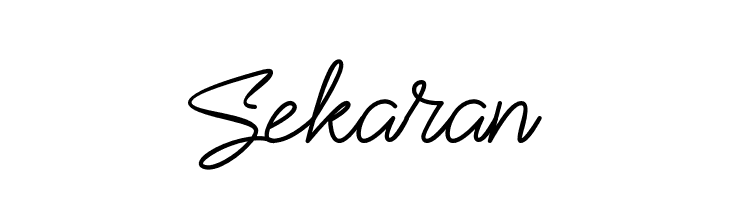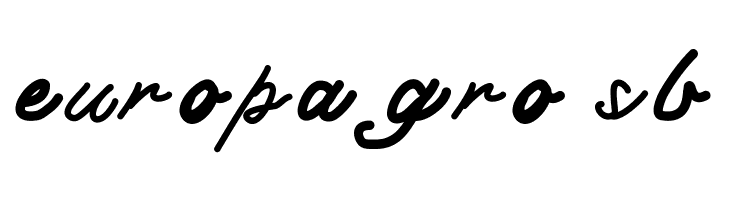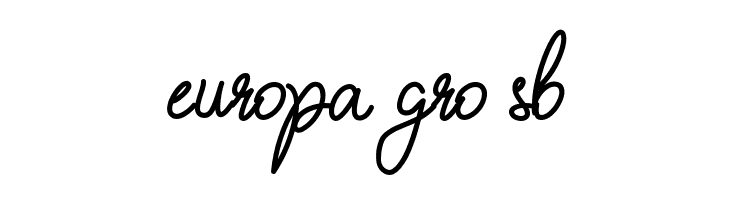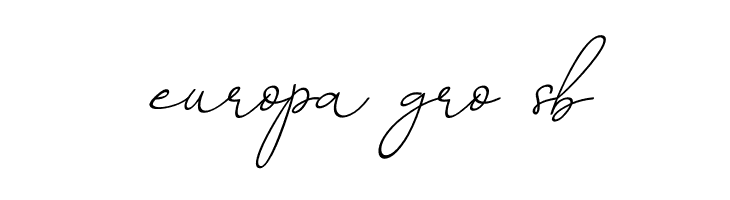
( Fonts by alphArtype )
Casual handwritten font with playful, informal style.
( Fonts by Perspectype Studio )
A whimsical, handwritten script with tall, narrow, and fluid letterforms.
( Fonts by Scratchones )
A modern, whimsical handwritten script with tall, narrow forms and playful loops.
( Fonts by Maulana Creative )
Elegant, tall handwritten script with a casual, modern feel.
( Fonts by Abo Daniel Studio )
Handwritten script with smooth, connected strokes and a casual, elegant vibe.
( Fonts by Scratchones )
Tall, thin handwritten script with playful, casual style.
( Fonts by Timur Type )
A delicate, handwritten script with elegant, flowing lines.
( Fonts by Maulana Creative )
Expressive handwritten script with tall, narrow letters and fluid connections.
Casual, playful handwritten font with whimsical details.
( Fonts by Jadatype )
Casual, handwritten script with tall, thin, flowing letters.
( Fonts by Wildan Type )
Casual handwritten font with tall, rounded letters and playful style.
( Fonts by Alexandra Newton )
Casual handwritten font with playful, irregular strokes.
( Fonts by Din Studio )
A lively handwritten script with a casual, flowing style.
( Fonts by PremiereGraphics )
Handwritten cursive script with elegant, fluid strokes.
( Fonts by Redy Studio )
Handwritten script font with elegant, flowing strokes.
( Fonts by Neiwman Ace )
Light, handwritten script with elegant loops and tall ascenders.
( Fonts by NihStudio )
Expressive handwritten script with tall, narrow, and fluid letterforms.
( Fonts by ONG Type )
Casual handwritten script with tall, narrow, and playful letterforms.
( Fonts by Integritype Studio )
Handwritten script with elegant, flowing lines and high contrast.
( Fonts by VinType )
A lively handwritten script with tall, narrow, and fluid letterforms.
( Fonts by Lettersweet Studio )
Casual handwritten script with smooth, rounded strokes.
( Fonts by Calligraphy Fonts )
A graceful, high-contrast handwritten script with long, sweeping lines.
( Fonts by DN Creative )
Tall, thin monoline handwritten script with playful, casual style.
( Fonts by NihStudio )
A tall, narrow, handwritten script with playful, casual energy.
( Fonts by FreshtypeINK )
A whimsical, hand-lettered script with decorative swashes.
( Fonts by Tezar Tantular )
Tall, narrow, handwritten script with a lively, informal appearance.
Elegant, handwritten script with thin, flowing lines.
( Fonts by Scratchones )
Tall, thin, handwritten script with playful, flowing lines.
( Fonts by Omotu Studio )
Handwritten script font with smooth, connected strokes.
( Fonts by Rangga Putra Budi Pratama )
Elegant, casual handwritten script with thin, flowing lines.
( Fonts by 212 fonts )
Casual handwritten sans-serif with tall, narrow characters.
Expressive handwritten script with brush-like strokes.
( Fonts by Creatype Studio )
Elegant, handwritten script with connected, flowing strokes.
( Fonts by Wahyu Studio )
A whimsical, handwritten script with tall, thin letters and a casual feel.
( Fonts by InspiraType )
A lively handwritten script with contrasting uppercase and lowercase styles.